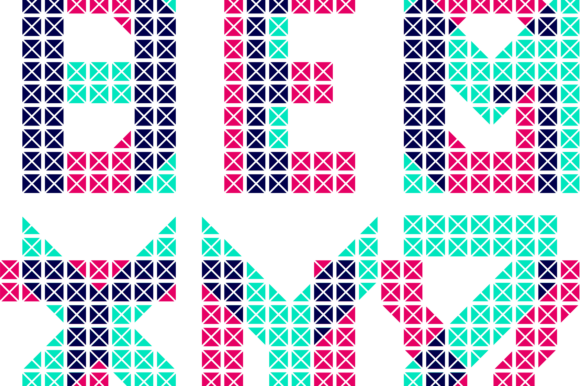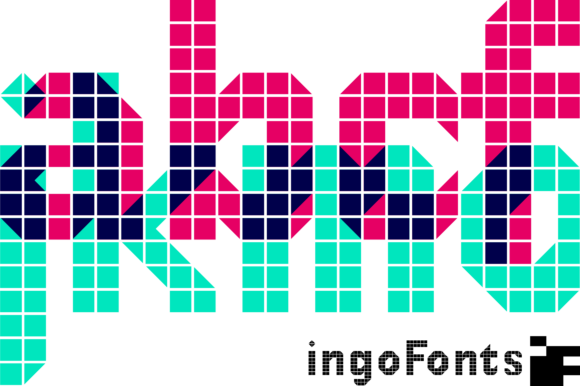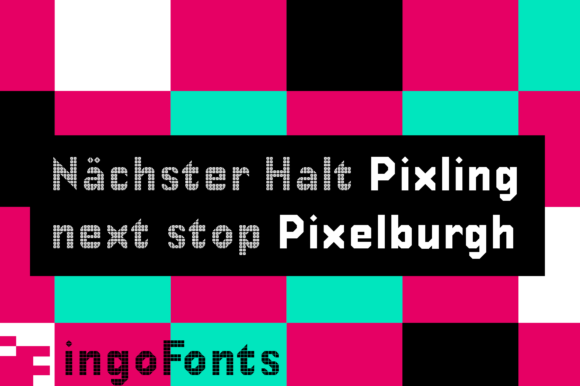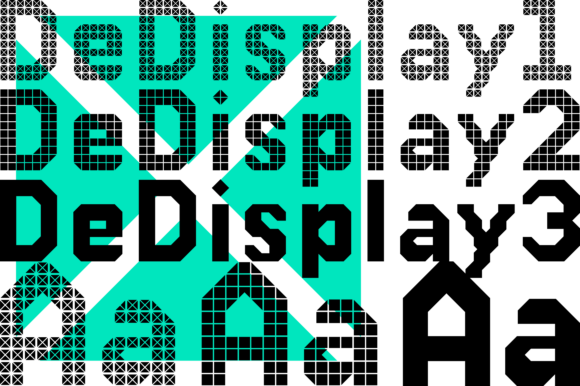
Introducing DeDisplay Font: The Perfect Blend of Playfulness and Technological Sophistication
In the world of typography, fonts play a crucial role in bringing a design project to life. A well-chosen font can elevate the visual appeal of a design, convey the right message, and leave a lasting impression on the audience. For designers and crafters looking for a font that exudes bold charm and a technological feel, DeDisplay Font is an excellent choice. In this article, we’ll explore the features and benefits of DeDisplay Font and why it’s an ideal choice for your next design project.
What is DeDisplay Font?
DeDisplay Font is a playful, yet smart display font designed to add a touch of bold charm to any design project. With its technological feel, this font is perfect for designers who want to create a futuristic and modern look. DeDisplay Font is a versatile typeface that can be used for a wide range of design applications, from logos and branding to posters, headlines, and more.
Key Features of DeDisplay Font
So, what makes DeDisplay Font stand out from other display fonts? Here are some of its key features:
- Playful yet Smart: DeDisplay Font strikes the perfect balance between playfulness and sophistication. Its unique design elements make it a fun and engaging font, while its clarity and legibility ensure it remains professional and smart.
- Technological Feel: The font’s technological feel is evident in its clean lines, geometric shapes, and futuristic design elements. This makes it perfect for designs that require a modern and innovative look.
- Bold Charm: DeDisplay Font has a bold and attention-grabbing quality that makes it perfect for headlines, titles, and other display text. Its charm lies in its ability to add a touch of personality to any design project.
- Versatile: DeDisplay Font is a versatile typeface that can be used for a wide range of design applications, from digital designs to print materials.
Benefits of Using DeDisplay Font
So, why should you choose DeDisplay Font for your next design project? Here are some benefits of using this amazing display font:
- Adds Visual Appeal: DeDisplay Font adds a touch of visual appeal to any design project. Its bold charm and technological feel make it perfect for designs that require a modern and attention-grabbing look.
- Conveys a Message: The font’s unique design elements convey a message of innovation, modernity, and playfulness. This makes it perfect for brands that want to communicate these values to their audience.
- Enhances Brand Identity: DeDisplay Font can help enhance a brand’s identity by adding a touch of personality and sophistication to its design elements.
- Easy to Read: Despite its bold and playful design, DeDisplay Font remains easy to read and understand. This makes it perfect for use in headlines, titles, and other display text.
Who Can Use DeDisplay Font?
DeDisplay Font is perfect for a wide range of designers and crafters, including:
- Graphic Designers: Graphic designers can use DeDisplay Font to add a touch of visual appeal to their designs. Its bold charm and technological feel make it perfect for logos, branding, and other design elements.
- Digital Designers: Digital designers can use DeDisplay Font to create modern and innovative digital designs, including website headers, mobile app designs, and more.
- Crafters: Crafters can use DeDisplay Font to add a touch of personality to their craft projects, including handmade cards, gift tags, and other paper crafts.
| Author | ingoFonts |
In conclusion, DeDisplay Font is a playful, yet smart display font that can add a touch of bold charm to any design project. Its technological feel, versatility, and ease of use make it perfect for designers and crafters looking for a modern and attention-grabbing font. Whether you’re a graphic designer, digital designer, or crafter, DeDisplay Font is an excellent choice for your next design project.